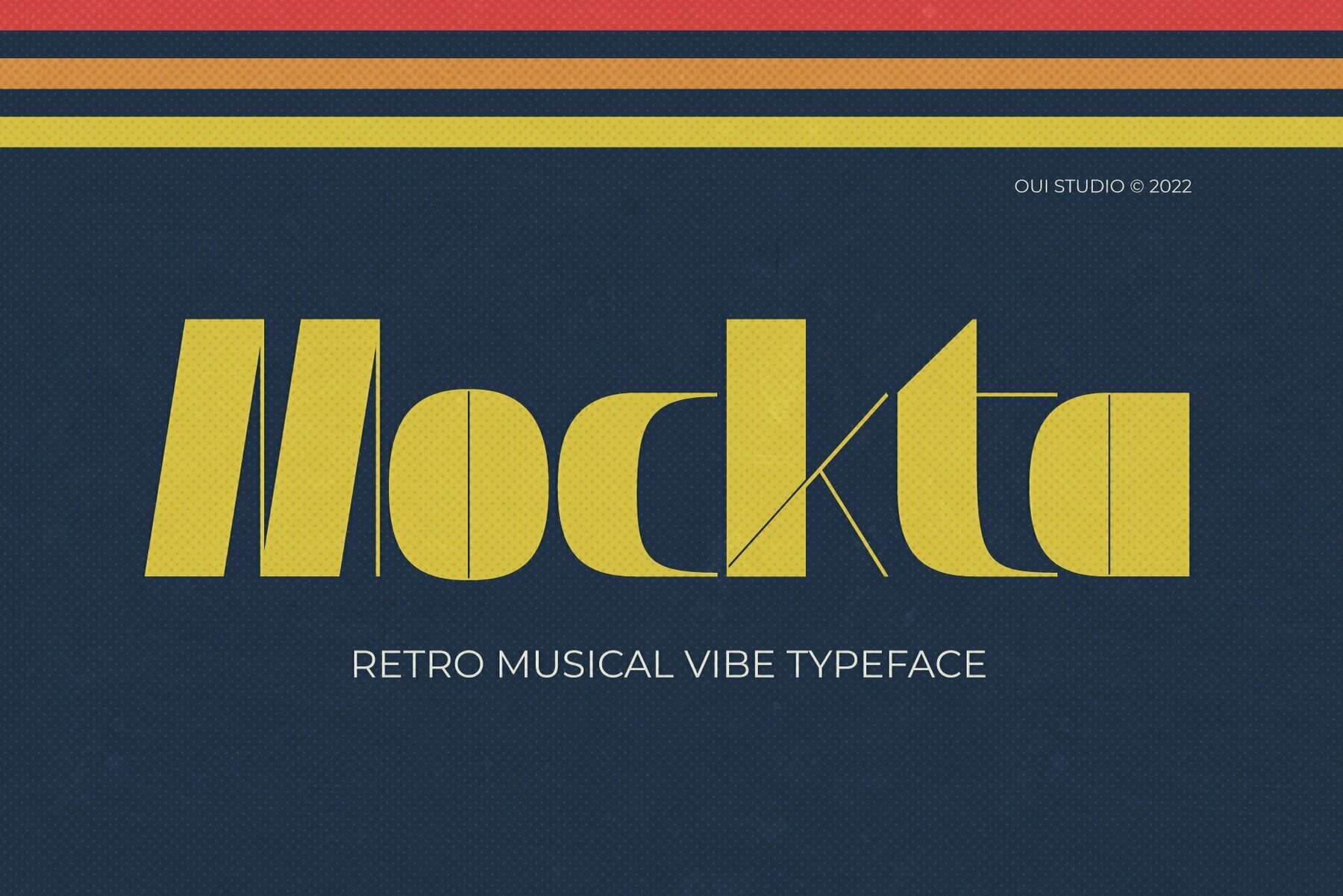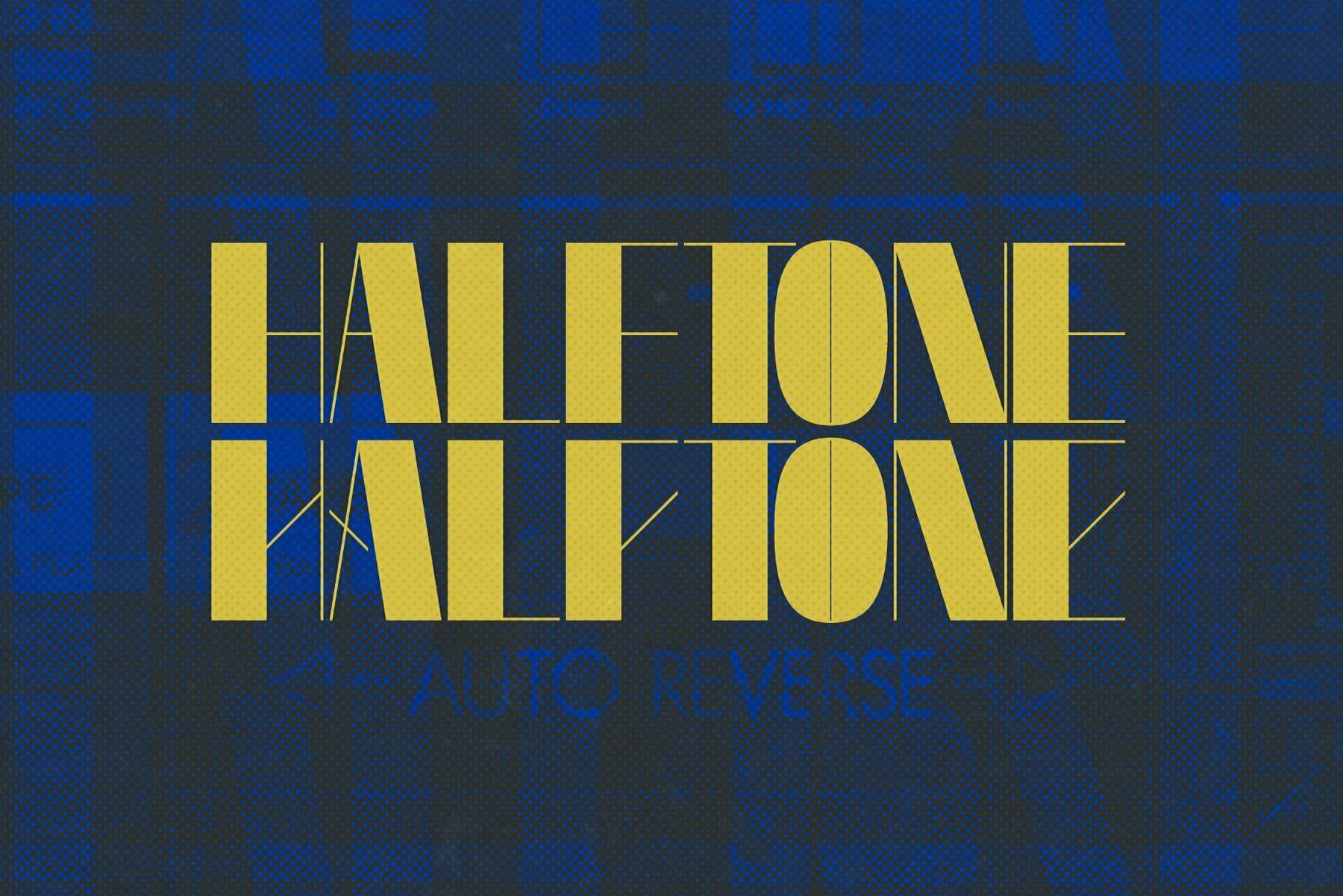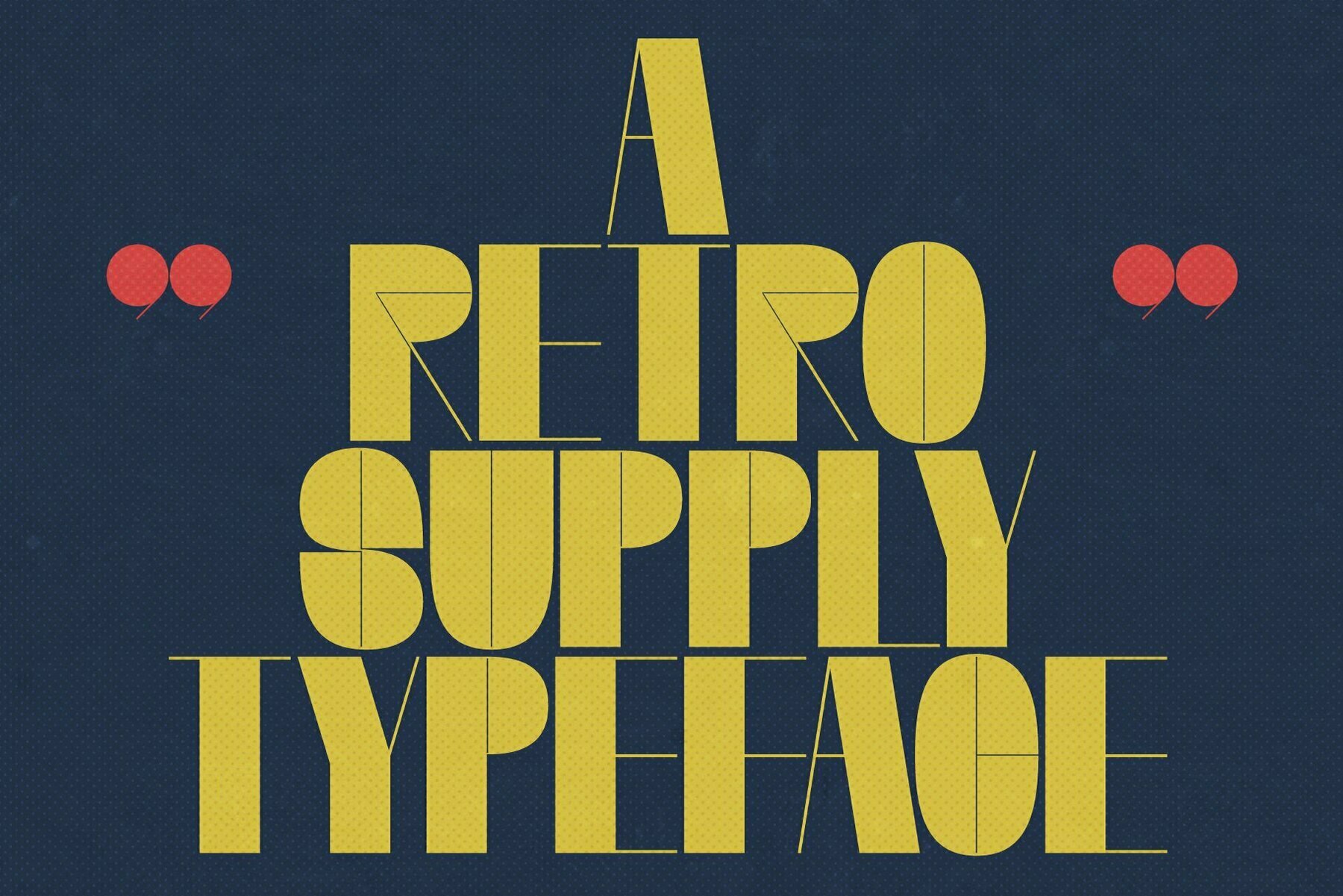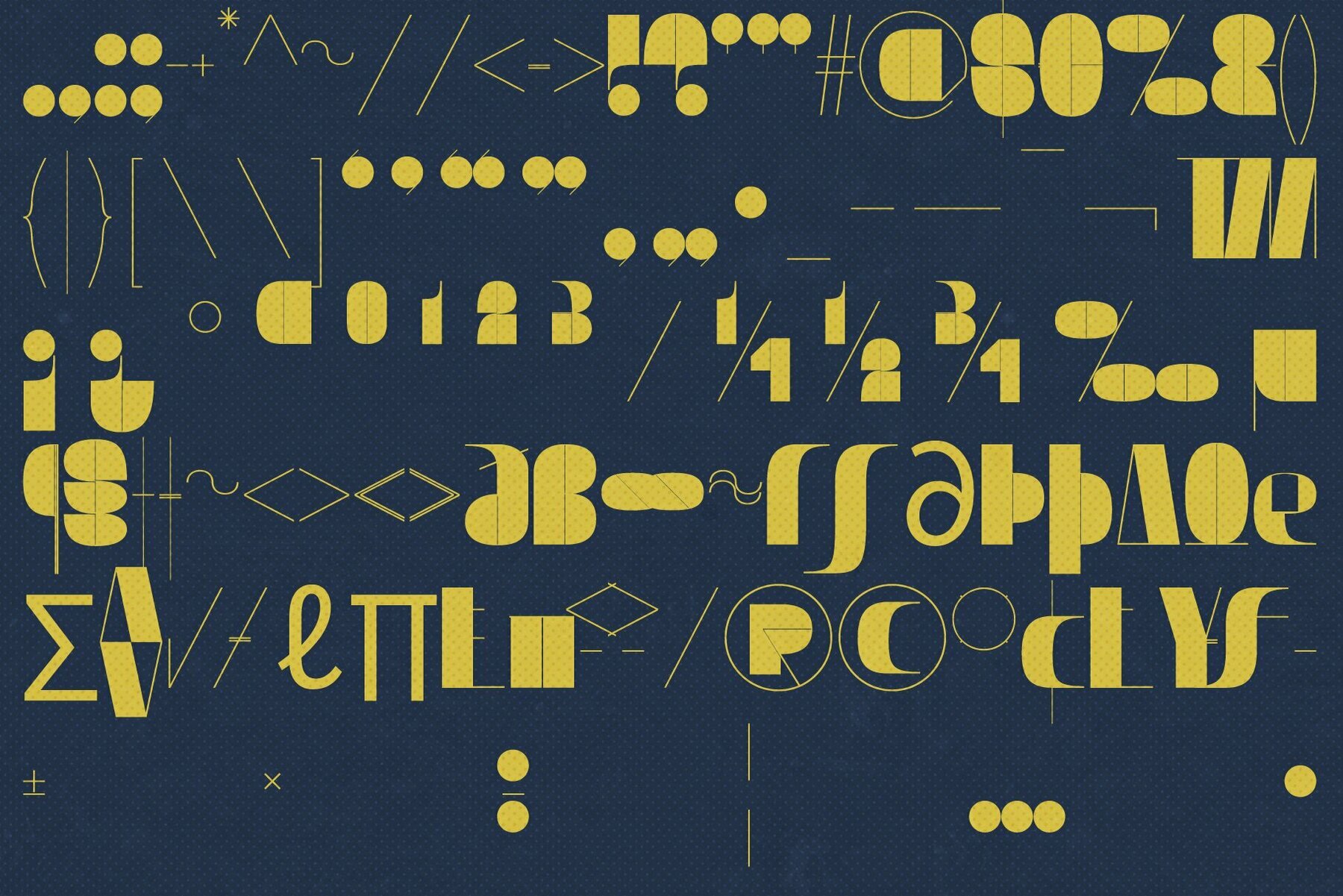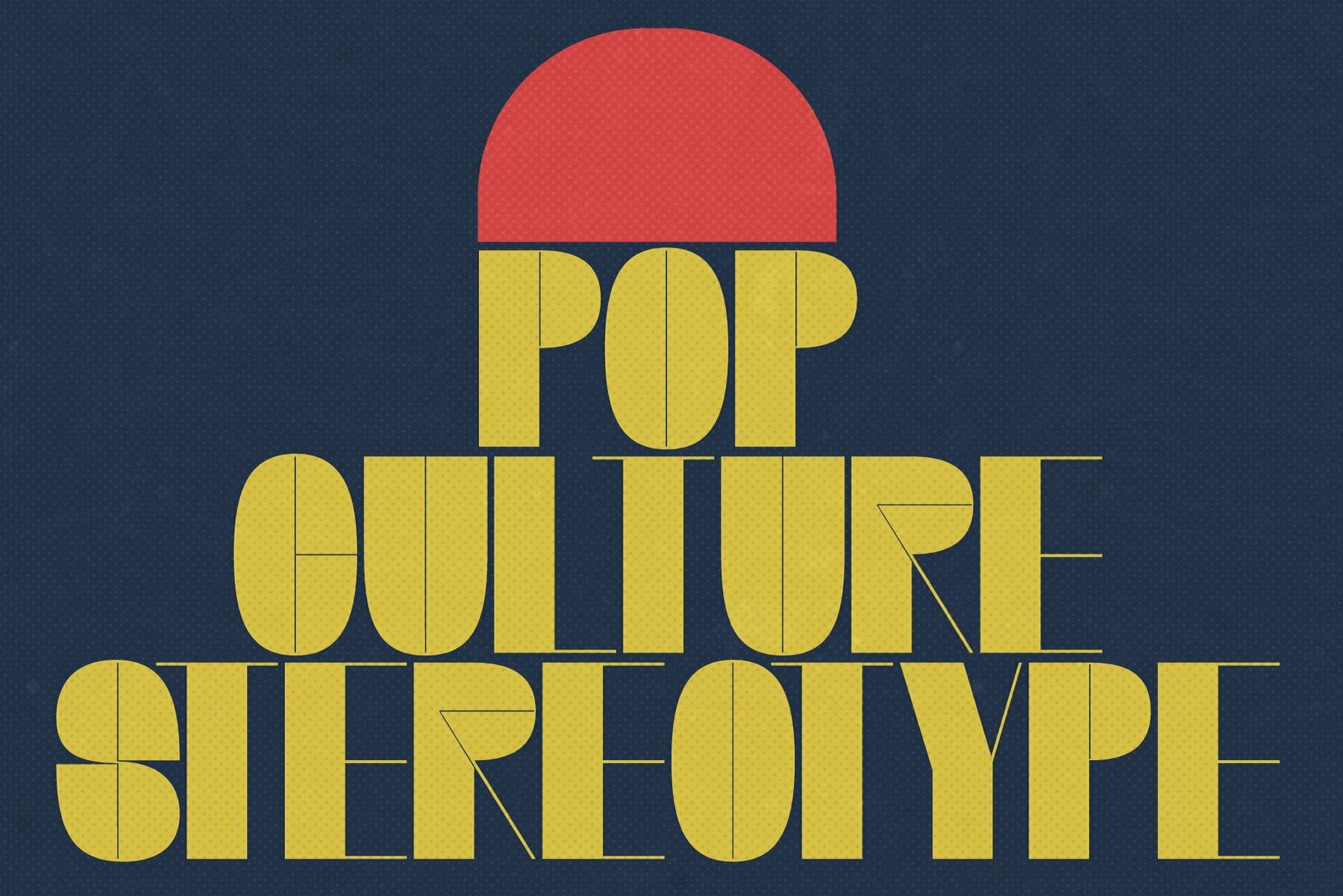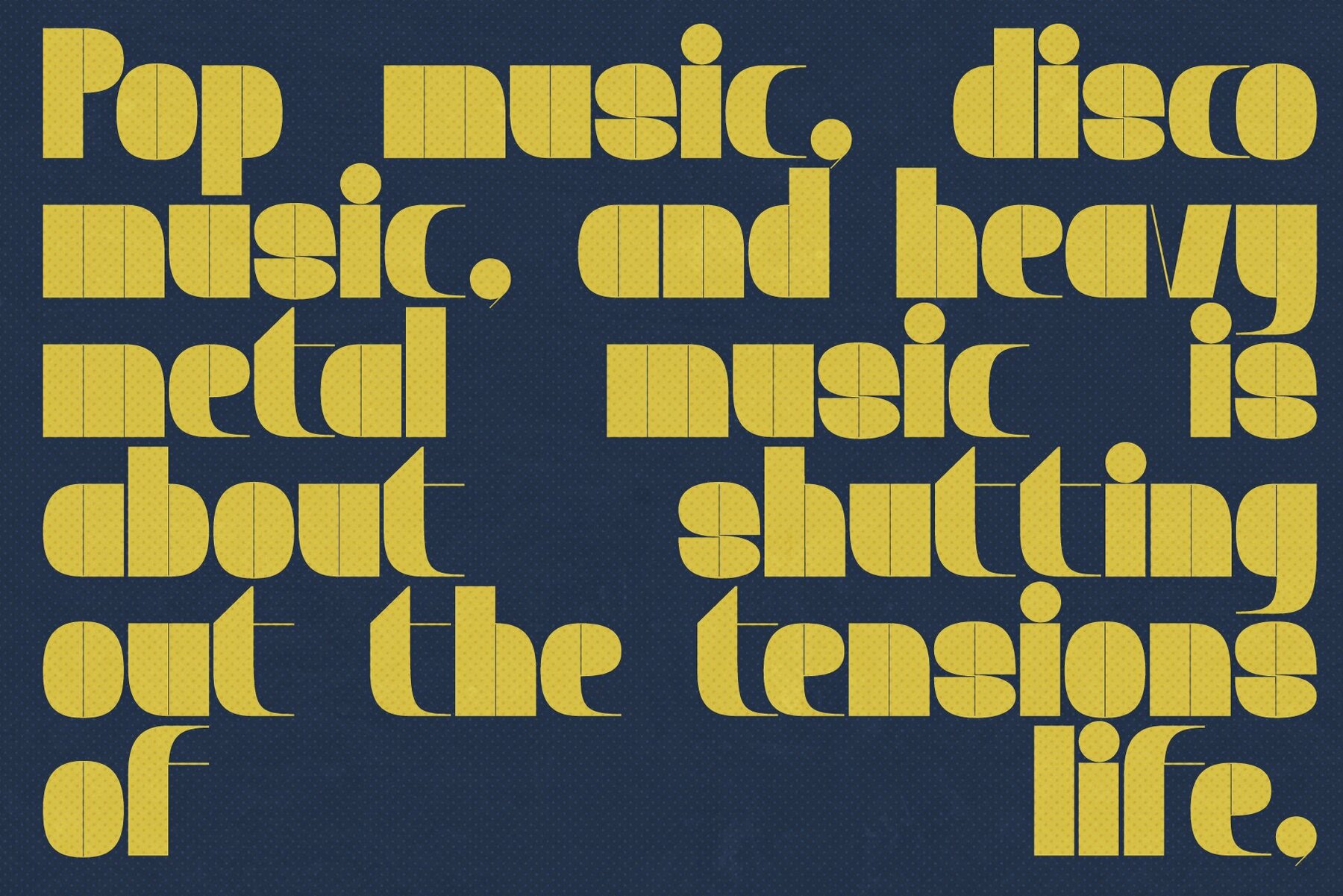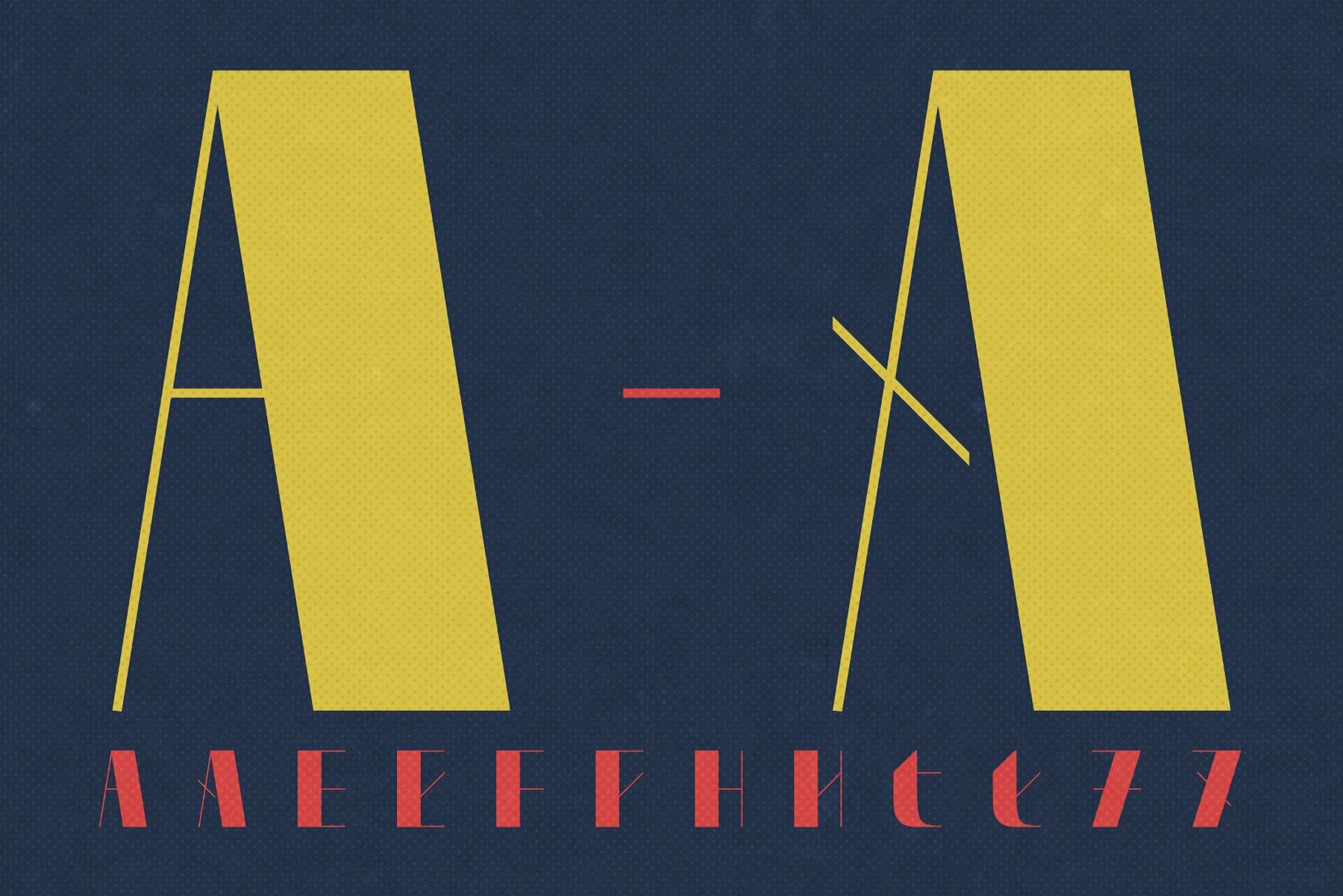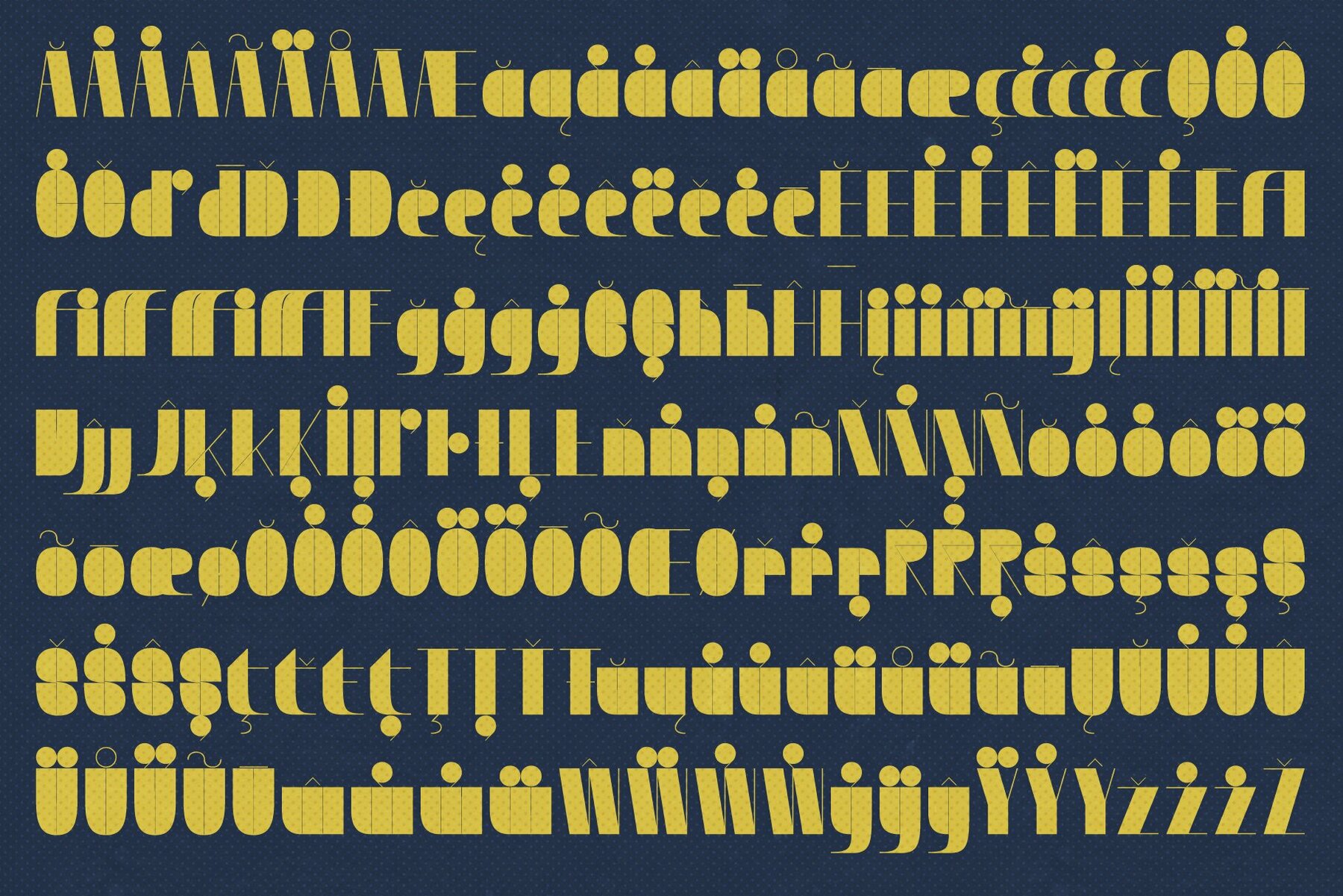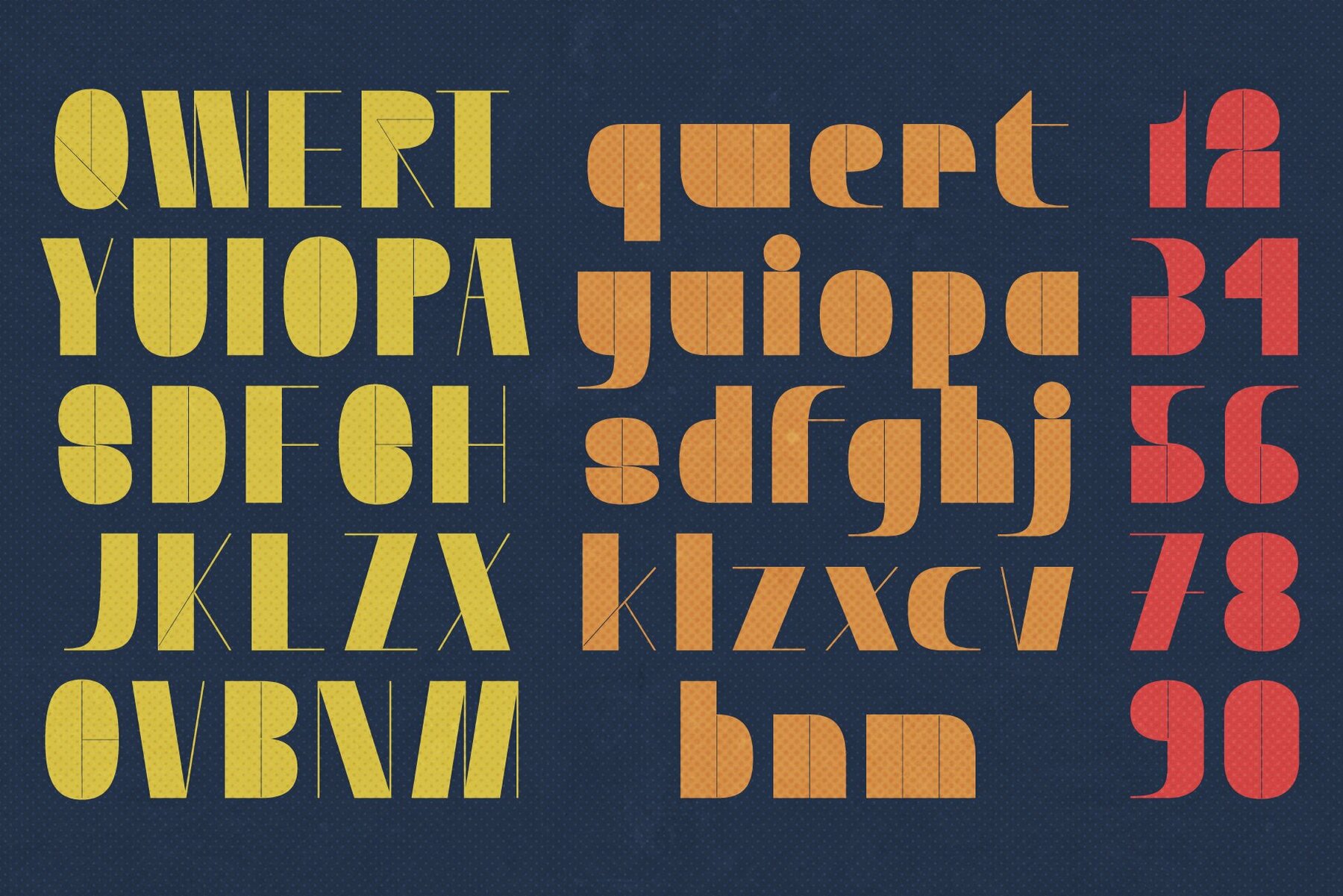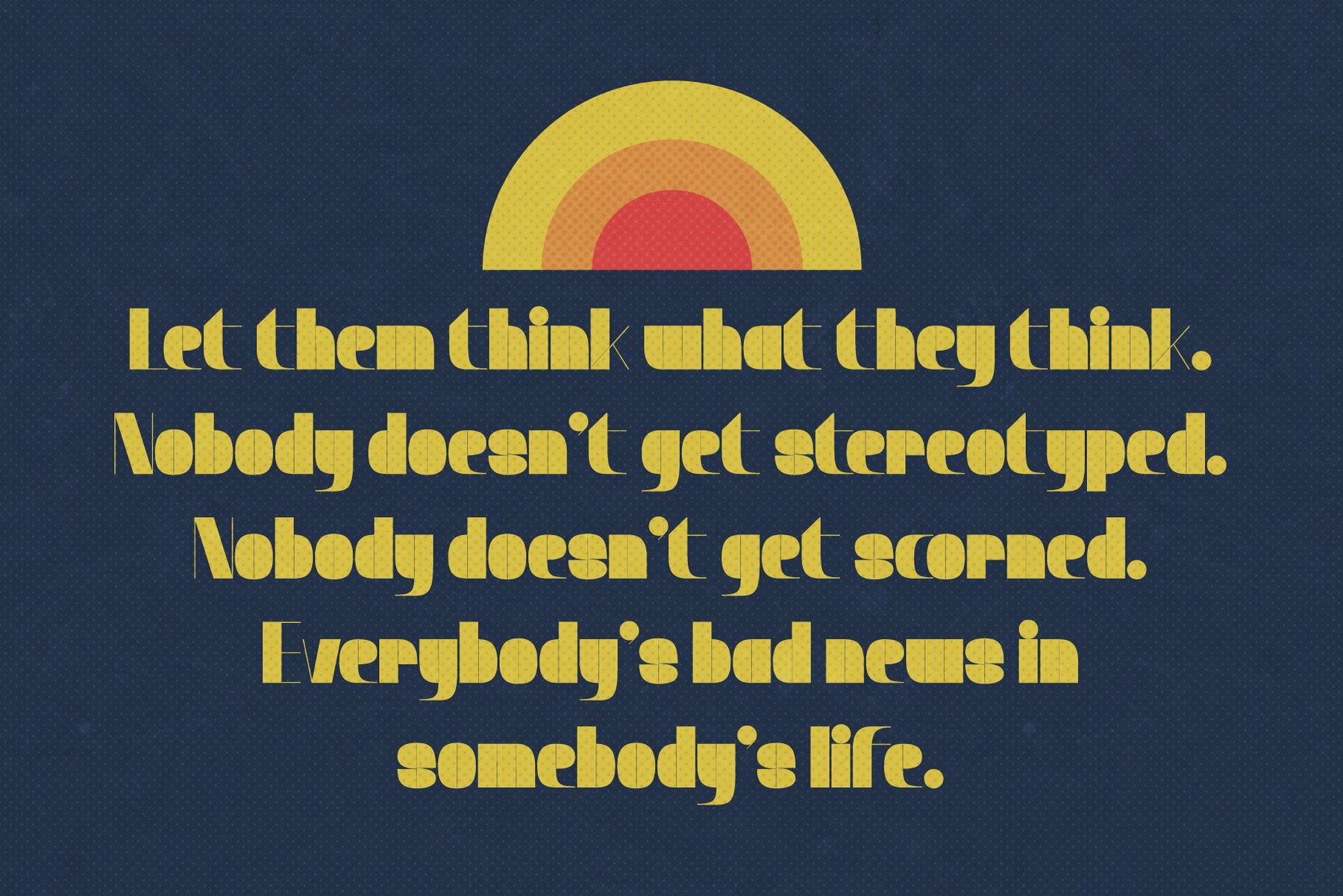
Mockta Font
Mockta Regular
Infuse your designs with the vibrant energy of the 1980s using Mockta, a font crafted by Oui Studio. Drawing inspiration from iconic music billboards and pop culture of the era, Mockta captures the essence of retro musical vibes. Its style is versatile and robust, making it an ideal choice for branding projects, logos, packaging, and various creative endeavors where a touch of nostalgia is desired. The consistent thin line found in every glyph of Mockta enhances its legibility while adding a touch of elegance to its retro aesthetic. This balanced approach ensures your message is conveyed clearly and stylishly, whether on a t-shirt, poster, or digital platform.Mockta: A Harmonious Retro-Inspired Typeface